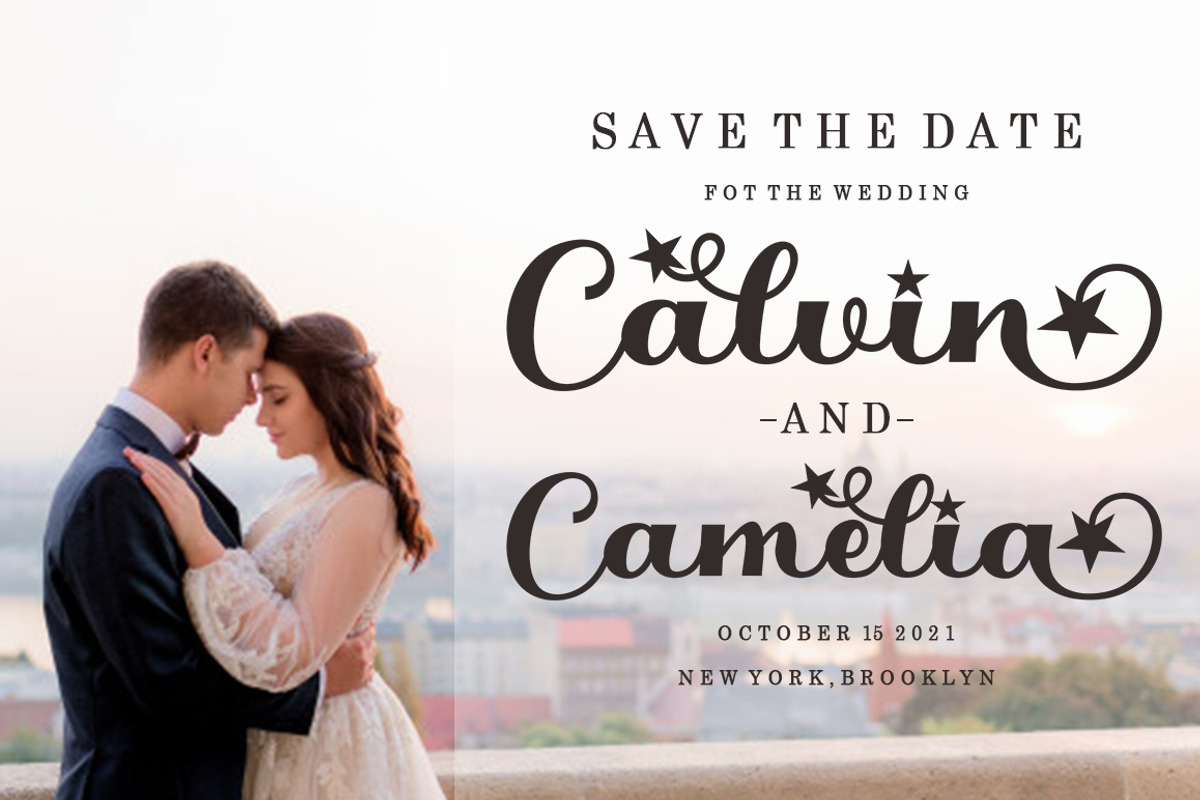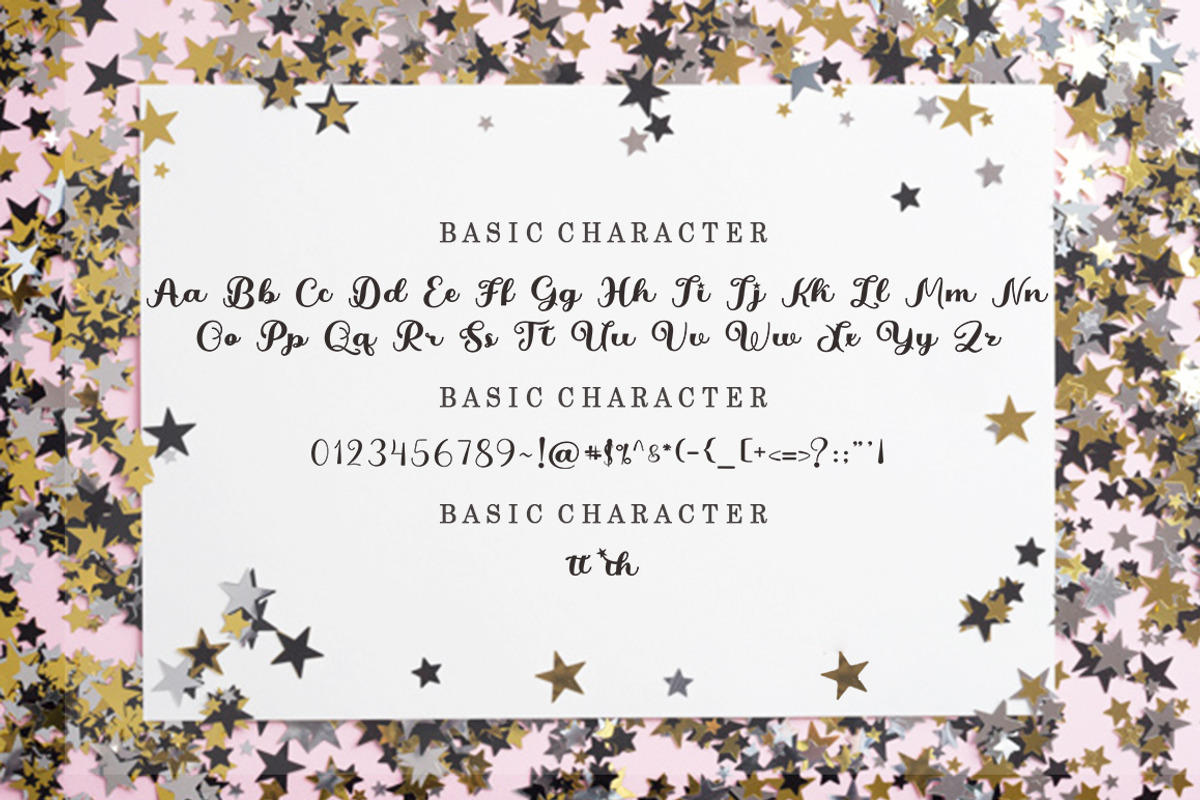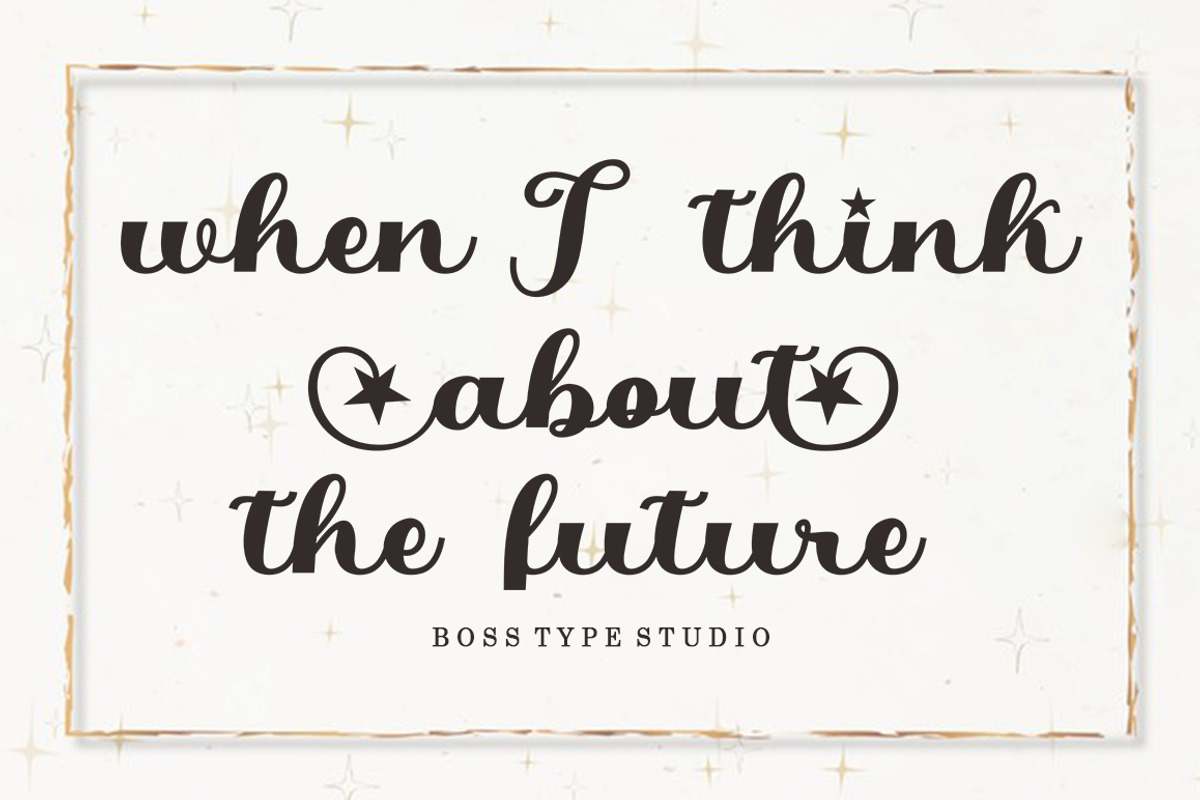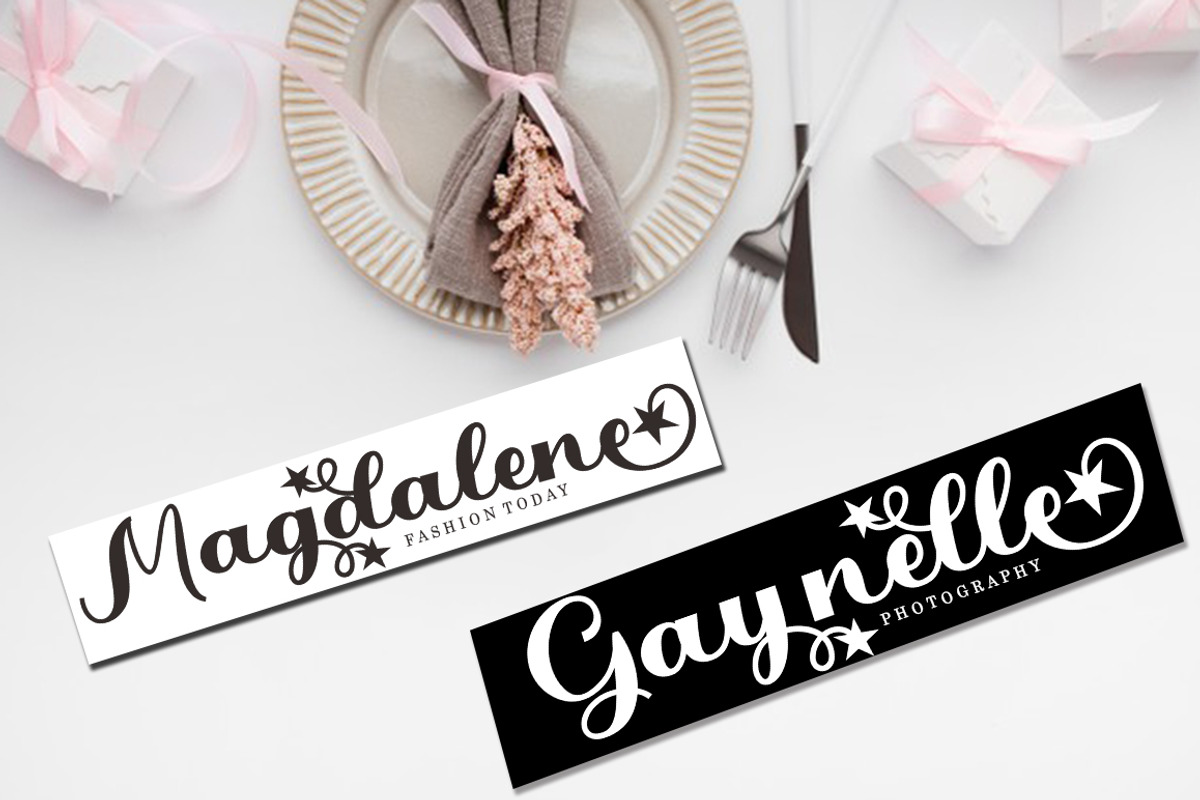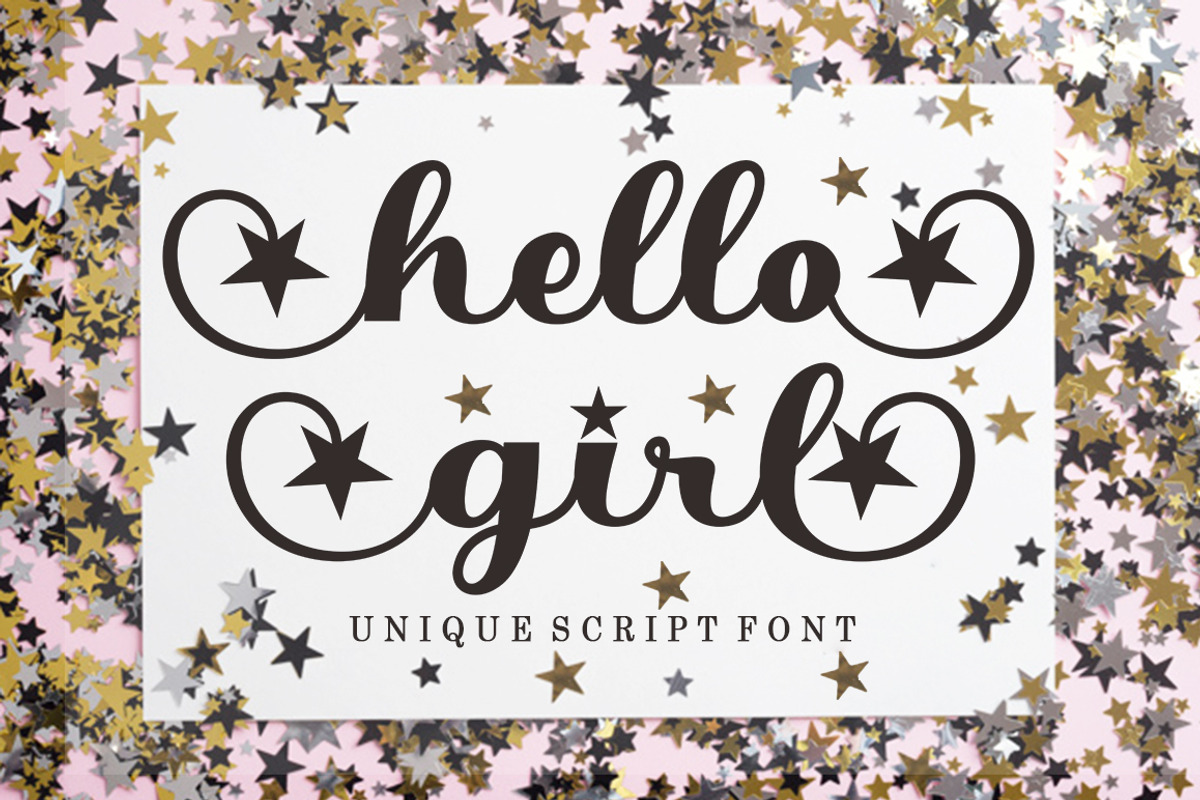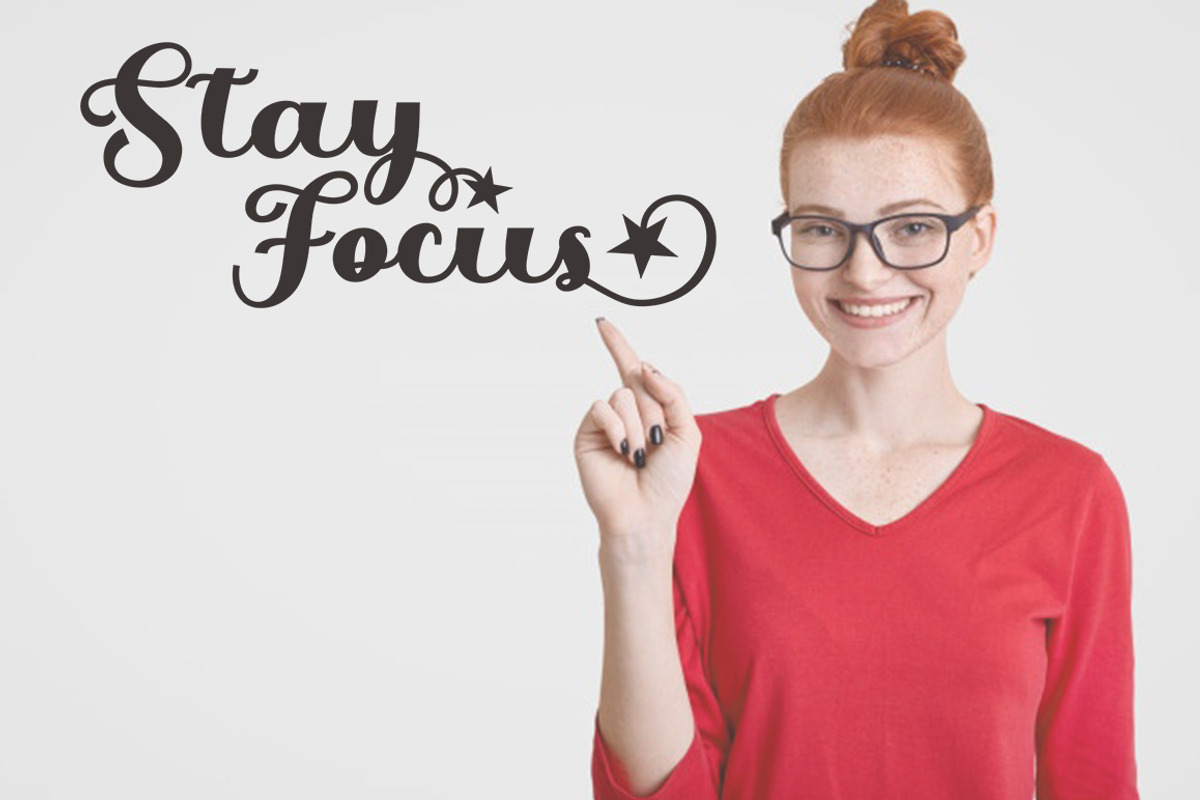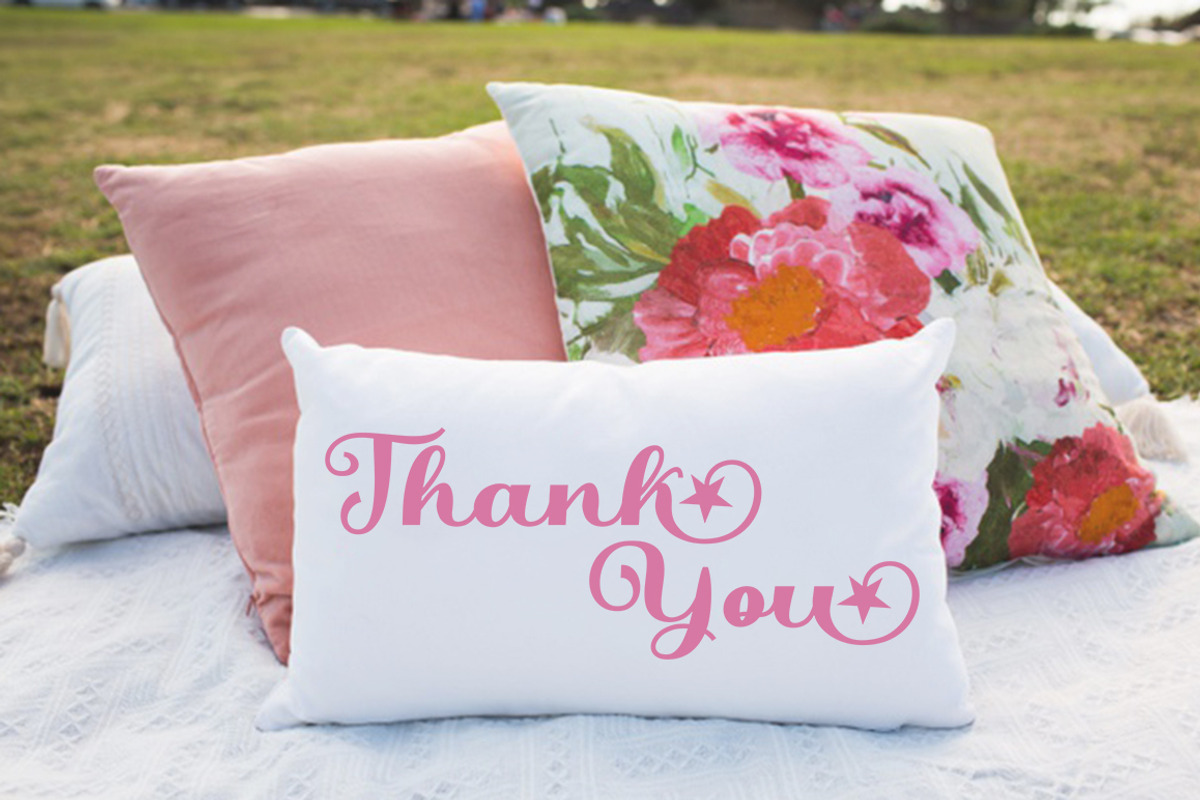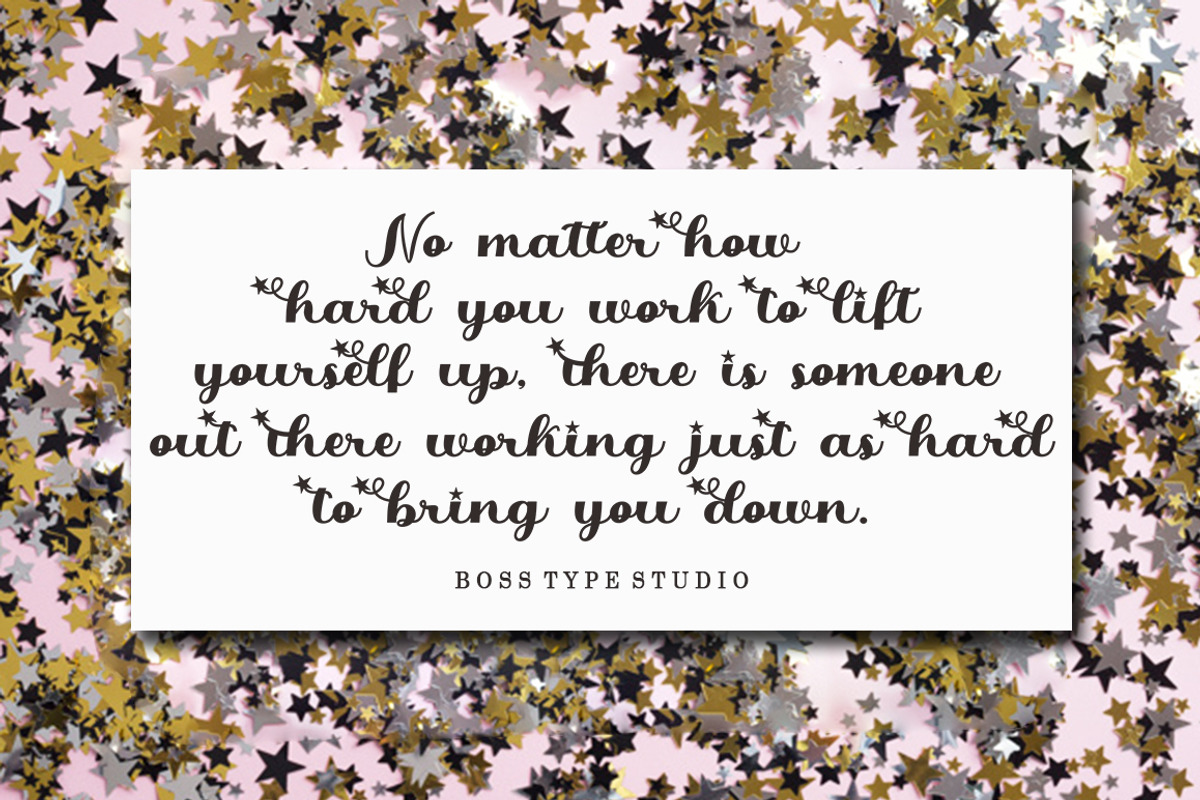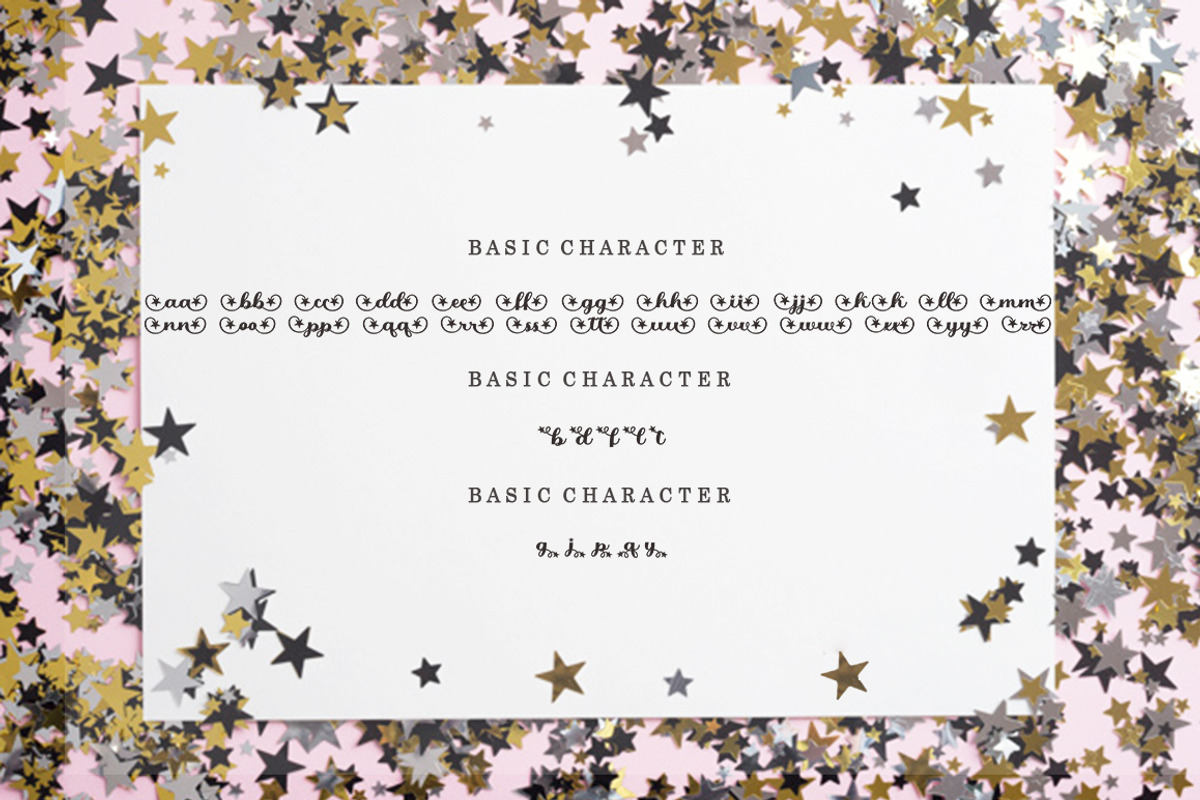
Hello Girl Unique Font
Hello Girl in a beautiful handwritten style. Equipped with 300 glyphs Hello Girl is perfect for branding projects, home appliance design, product packaging, use in business cards, invitation cards, etc. Simply as a stylish text overlay onto a background image or anything that requires a touch of elegance.